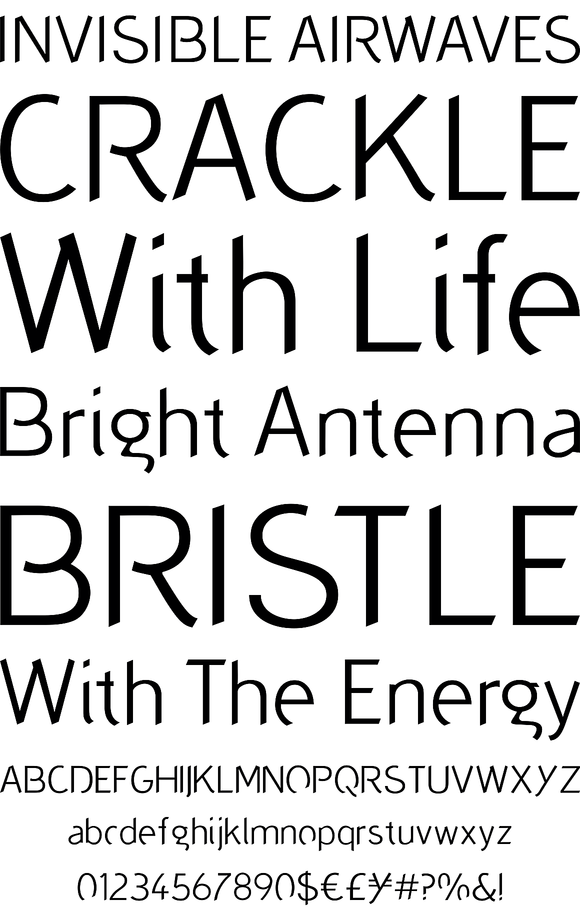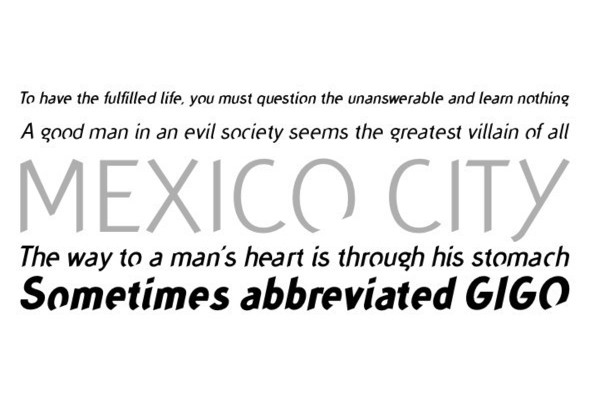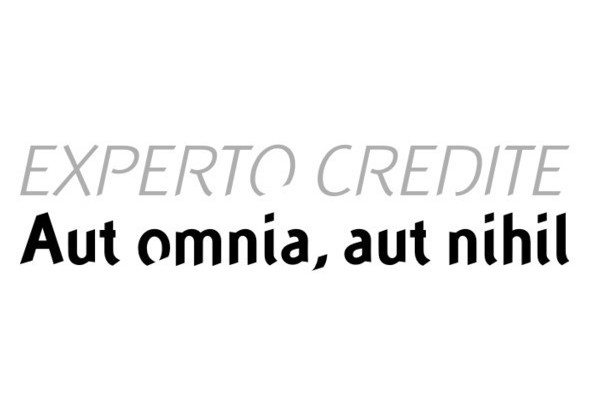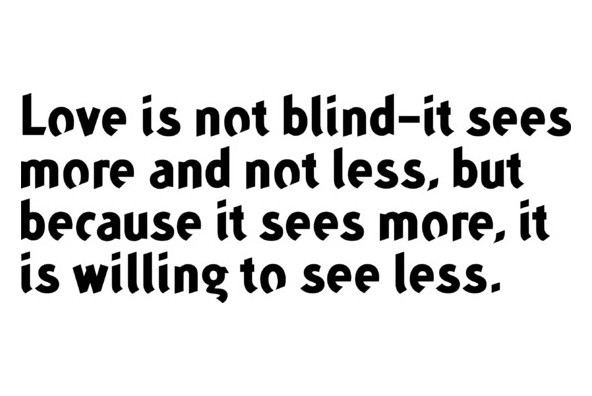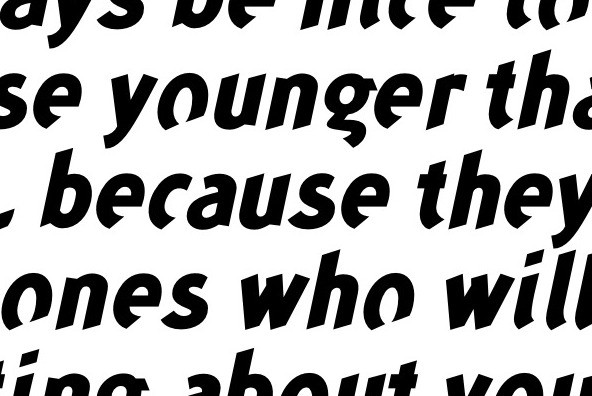
Concept Sans
The Concept Sans Series is a skillful and inventive combination of calligraphy and cut-away. There is also a complementary Concept Sans Condensed family. Both are available in 10 weights. Concept Crisis is an experiment in type. Mayers says: Crisis, Punk, Distressed, Eclectic, Grunge - call it what you will, Concept Crisis A,B,C, and Painted are all variations on a theme. As a classically trained typographer, it was a personal challenge for me to understand and challenge this revolutionary concept.